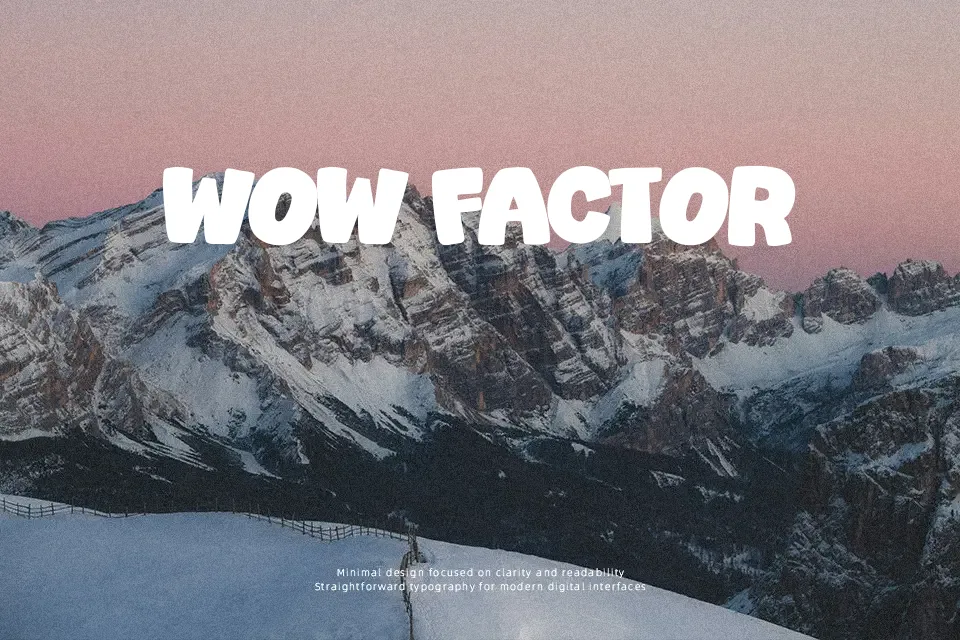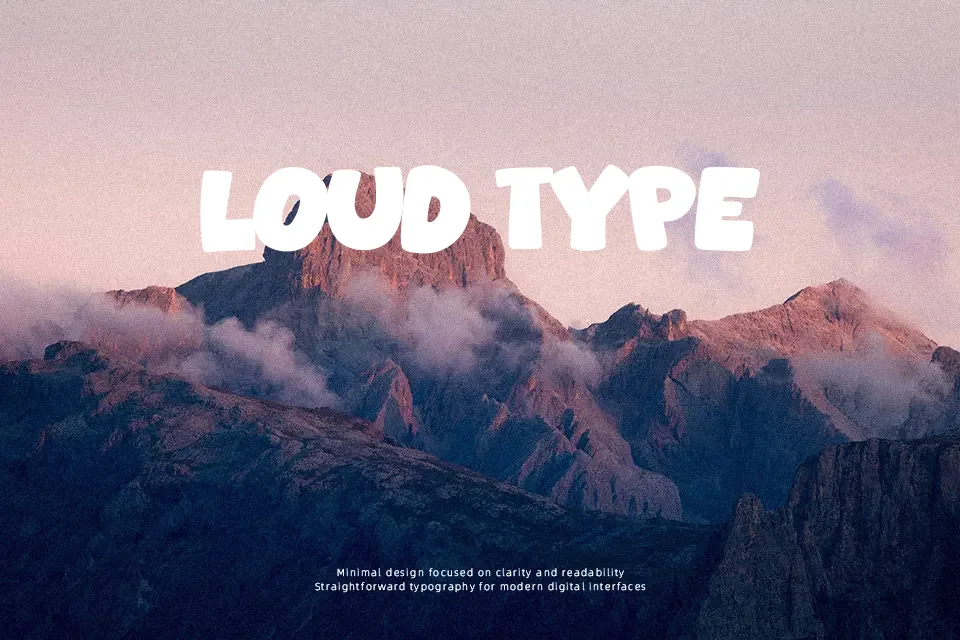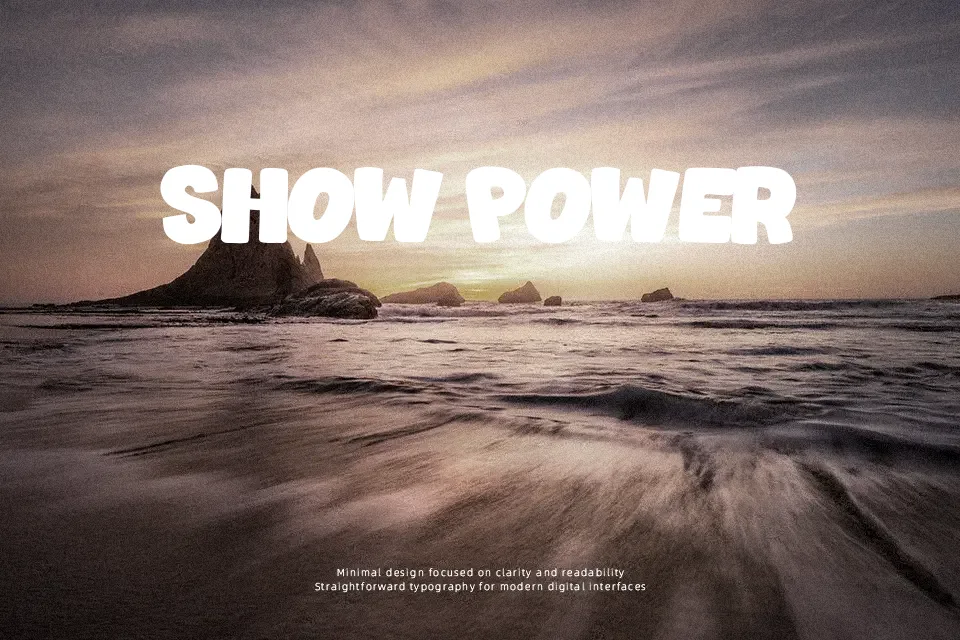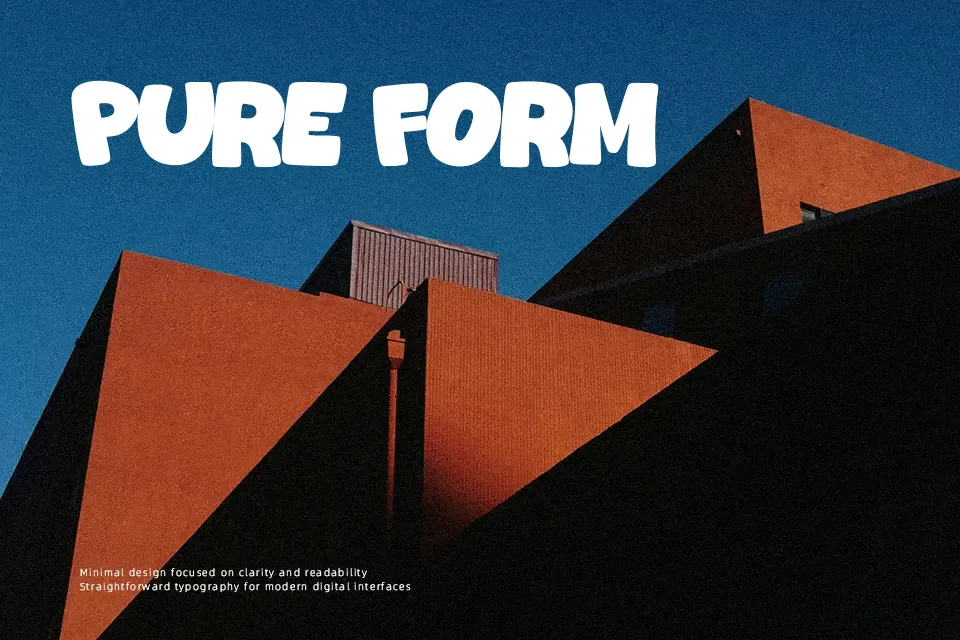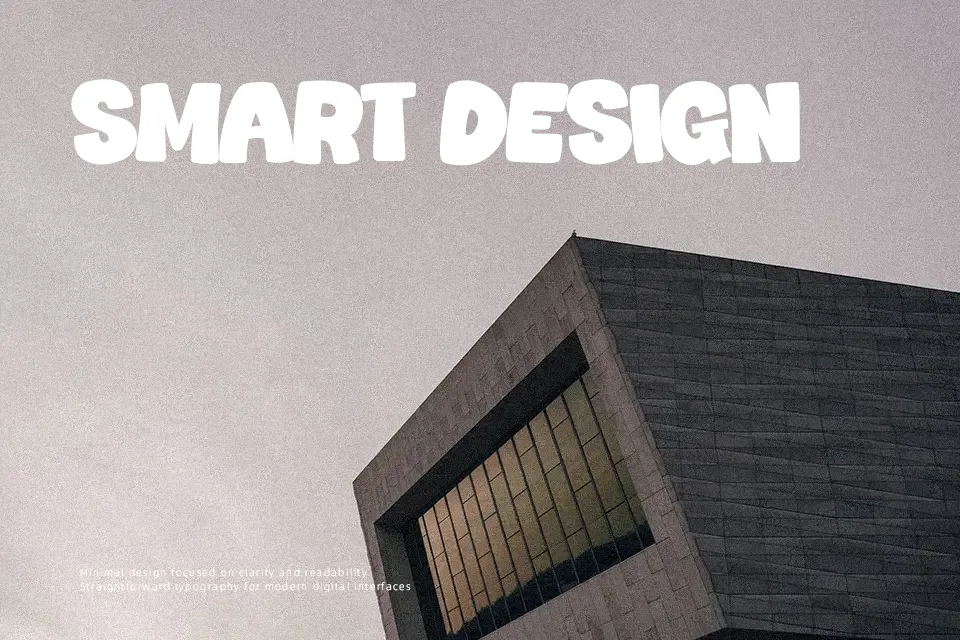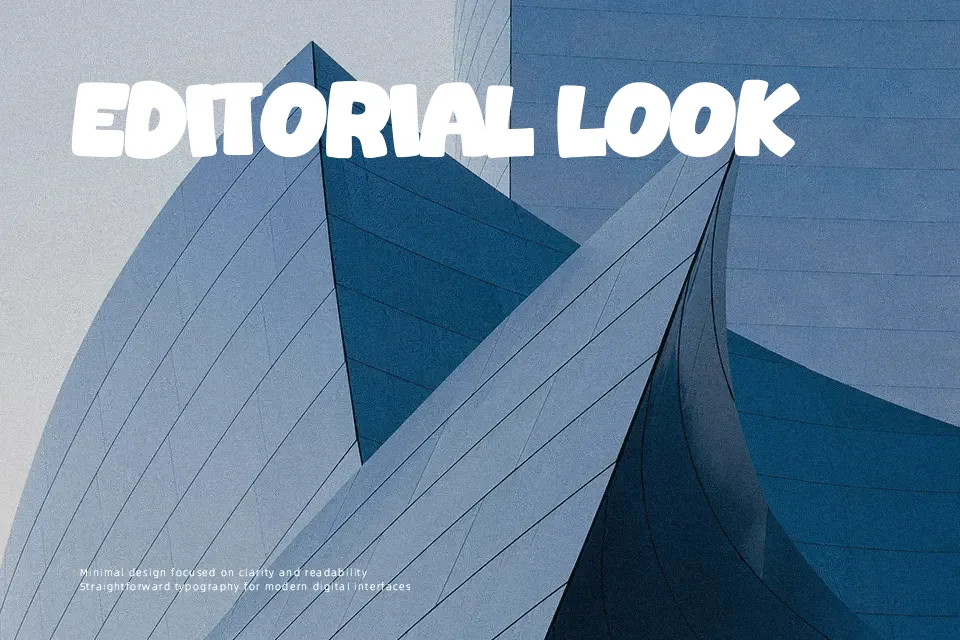
Newyear Goo Font
Designed by Khurasan
Newyear Goo presents thick, highly rounded letterforms that feel soft and gelatinous, with each character appearing to melt slightly into its shape. The strokes are heavy and fairly even in weight, creating a solid silhouette with low contrast and a distinctly decorative profile. Spacing is moderately tight, so words form compact, graphic clusters that stand out in short titles and festive phrases. The proportions lean wide and chunky, which helps the design remain legible at medium and large display sizes but makes continuous reading more tiring. Decorative details and dense shapes reduce clarity in small captions or long text blocks, so the typeface is best treated as a punchy display element rather than a general-purpose text choice.
holiday event posters
seasonal sale headlines
party invitations and greeting cards
social media graphics for celebrations
small body copy or captions
Perfect for headline, logo, and packaging, with a bold and cartoon style.